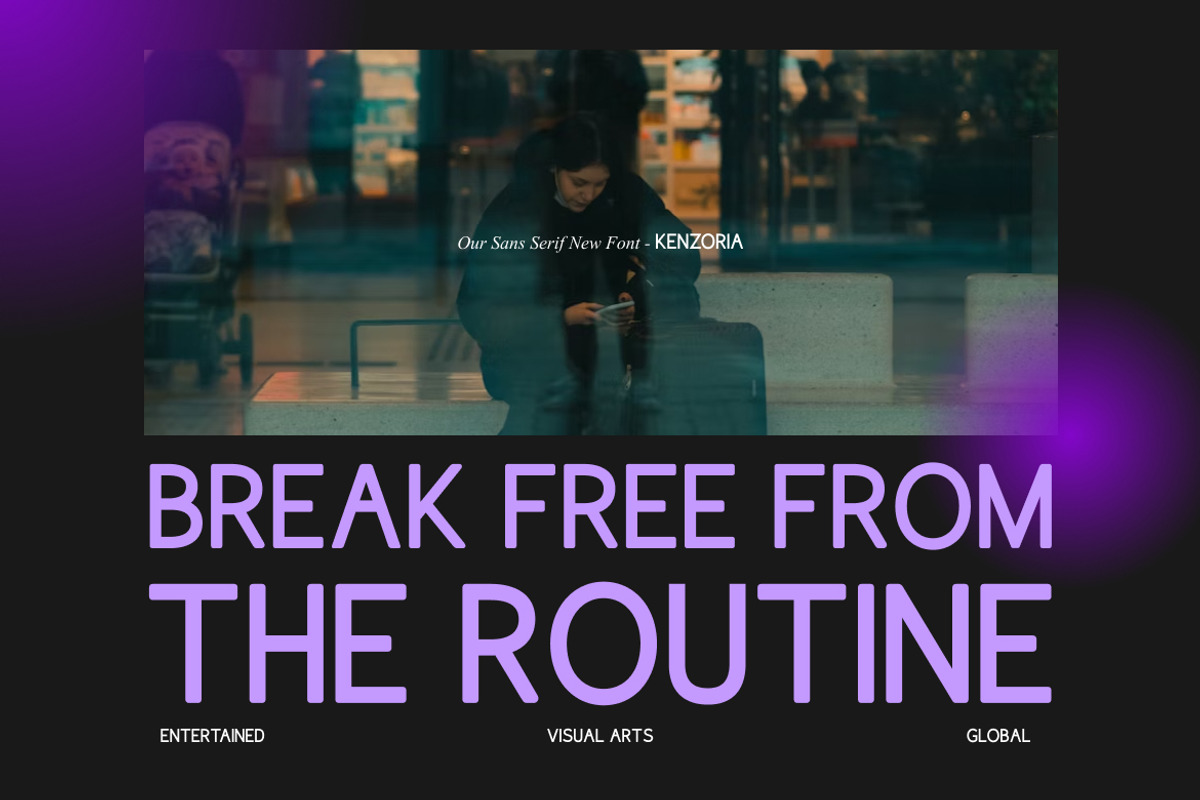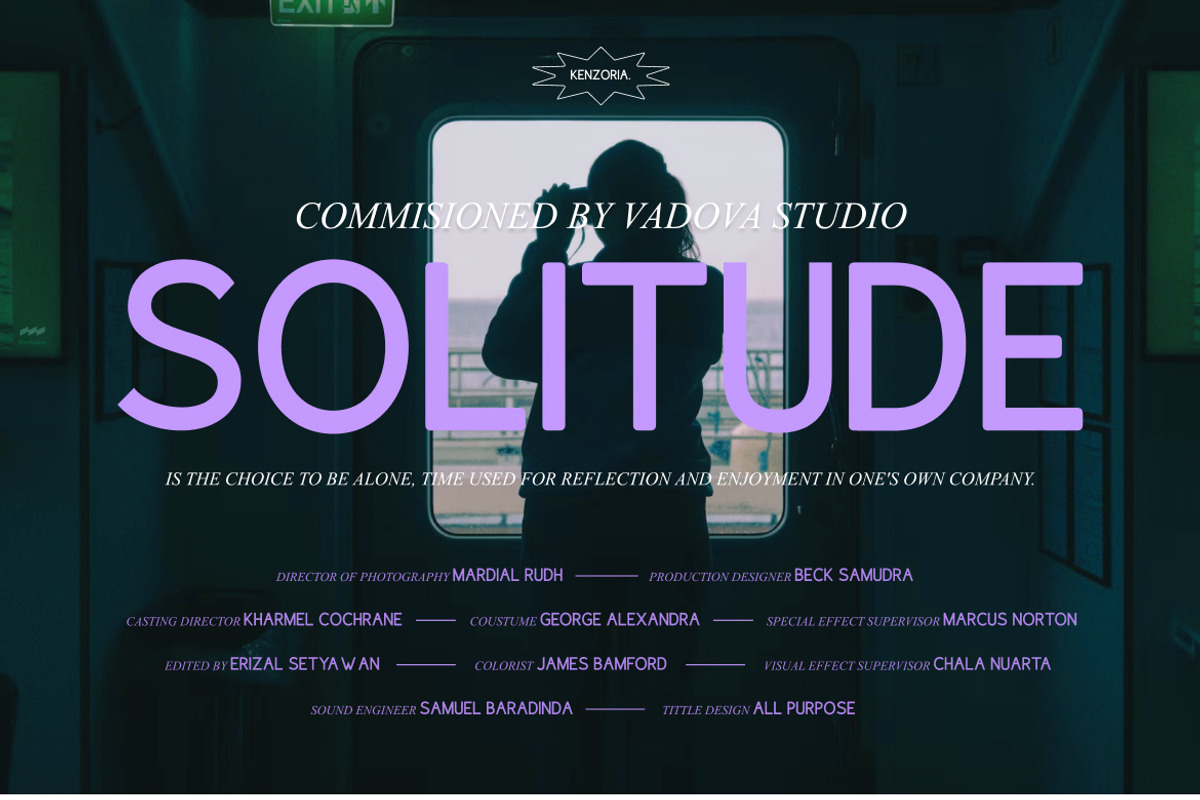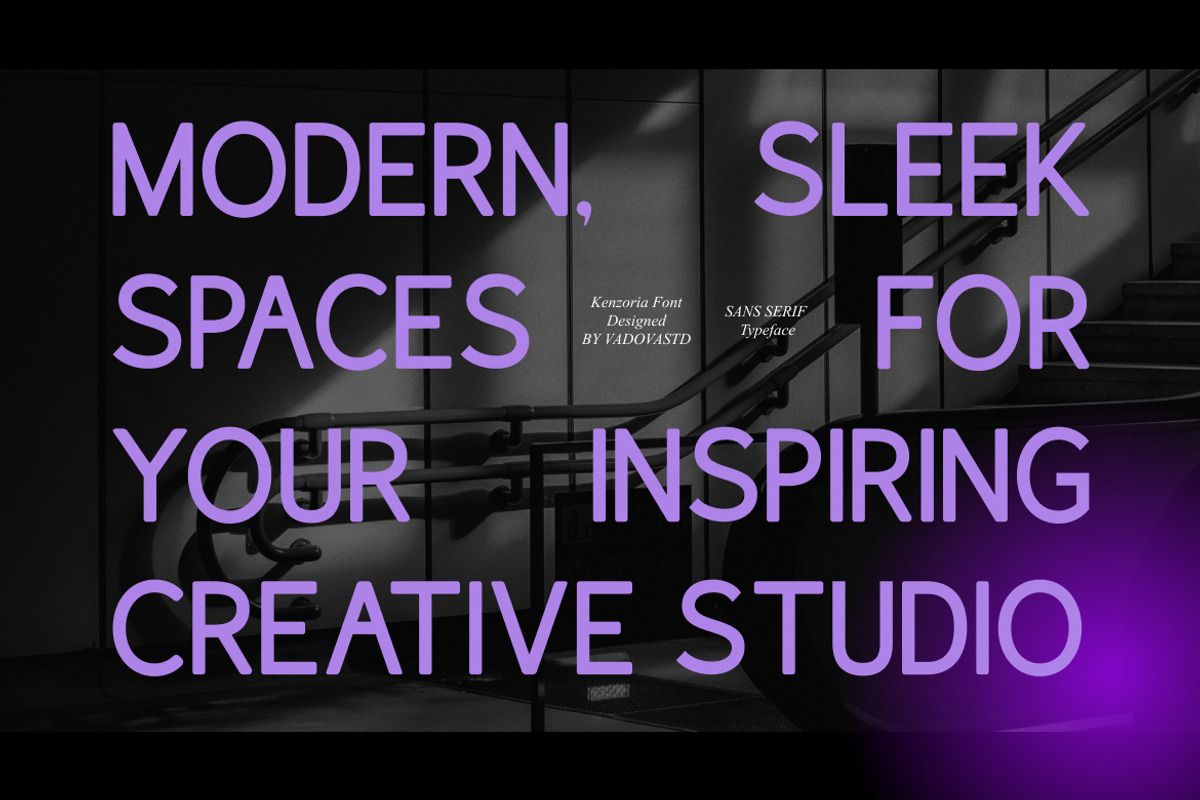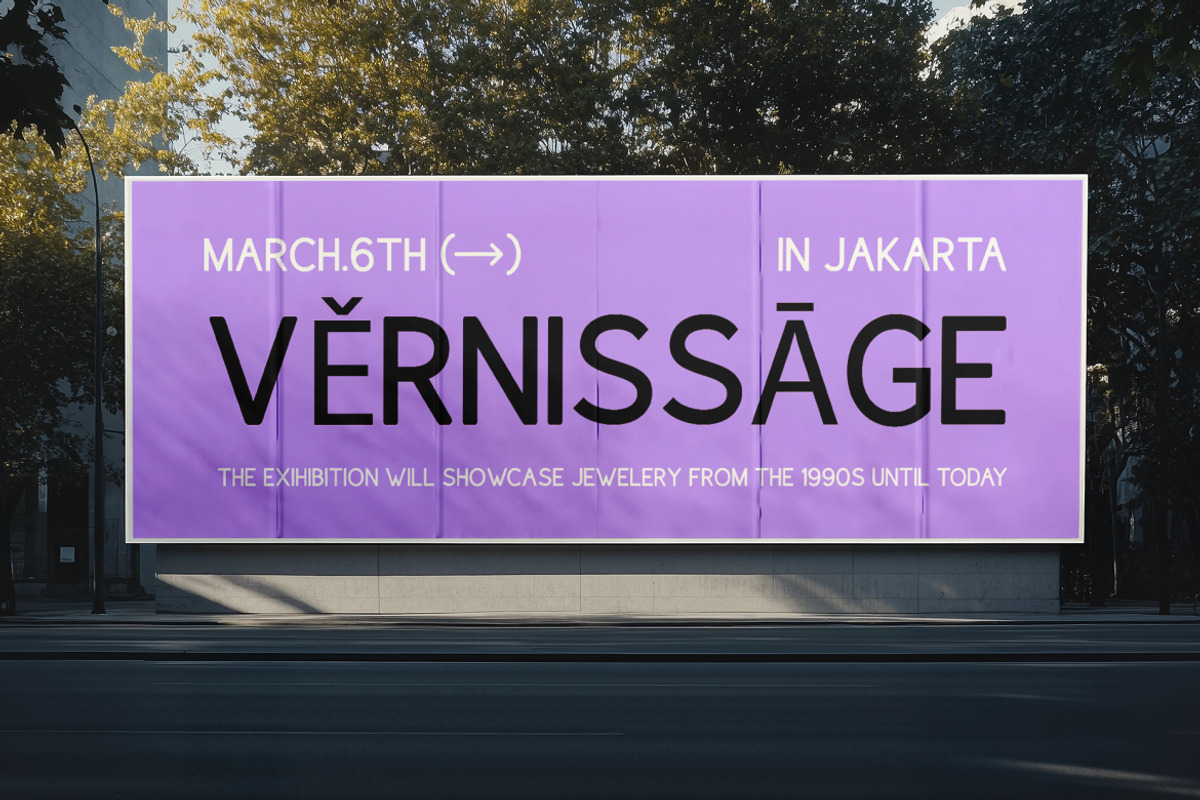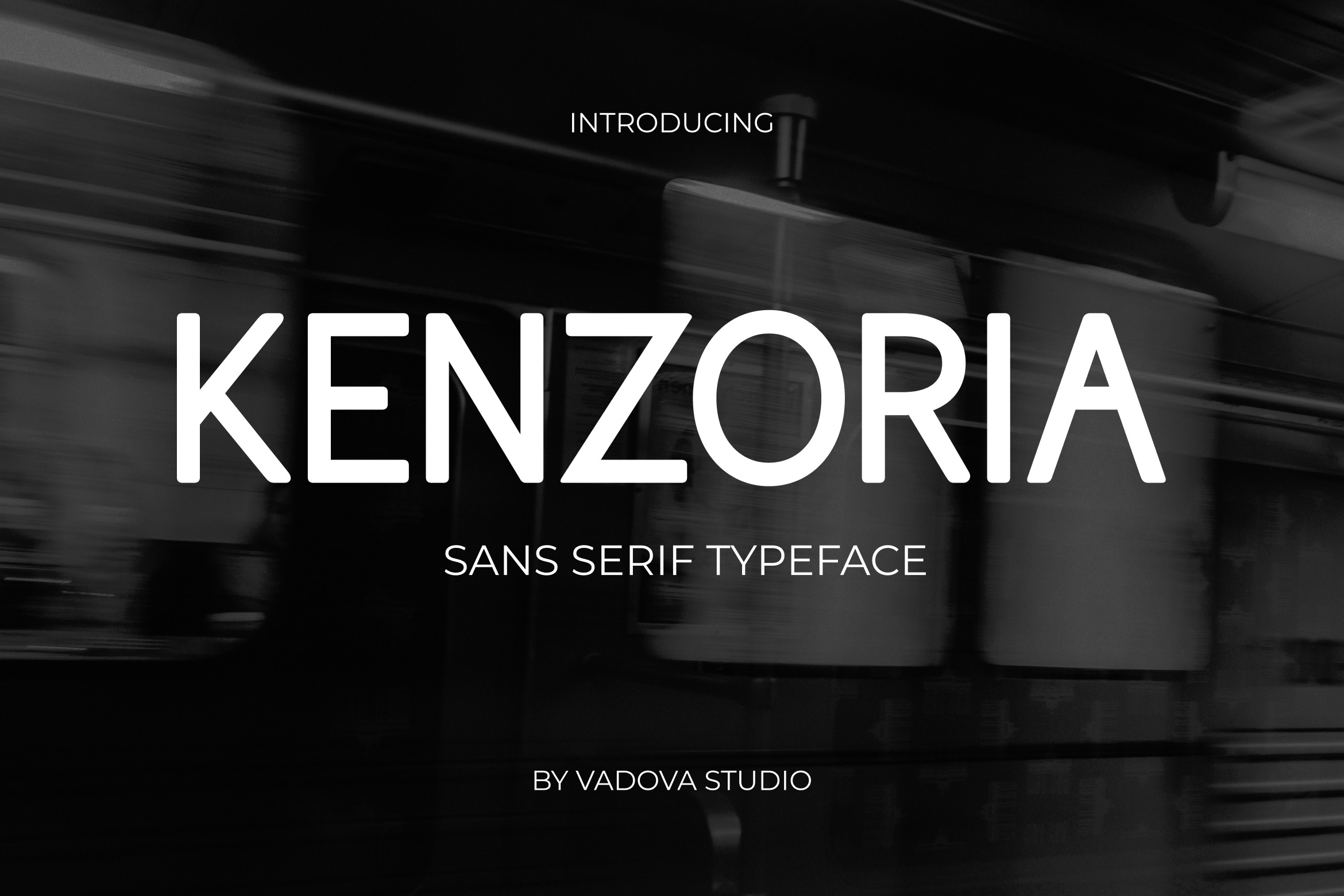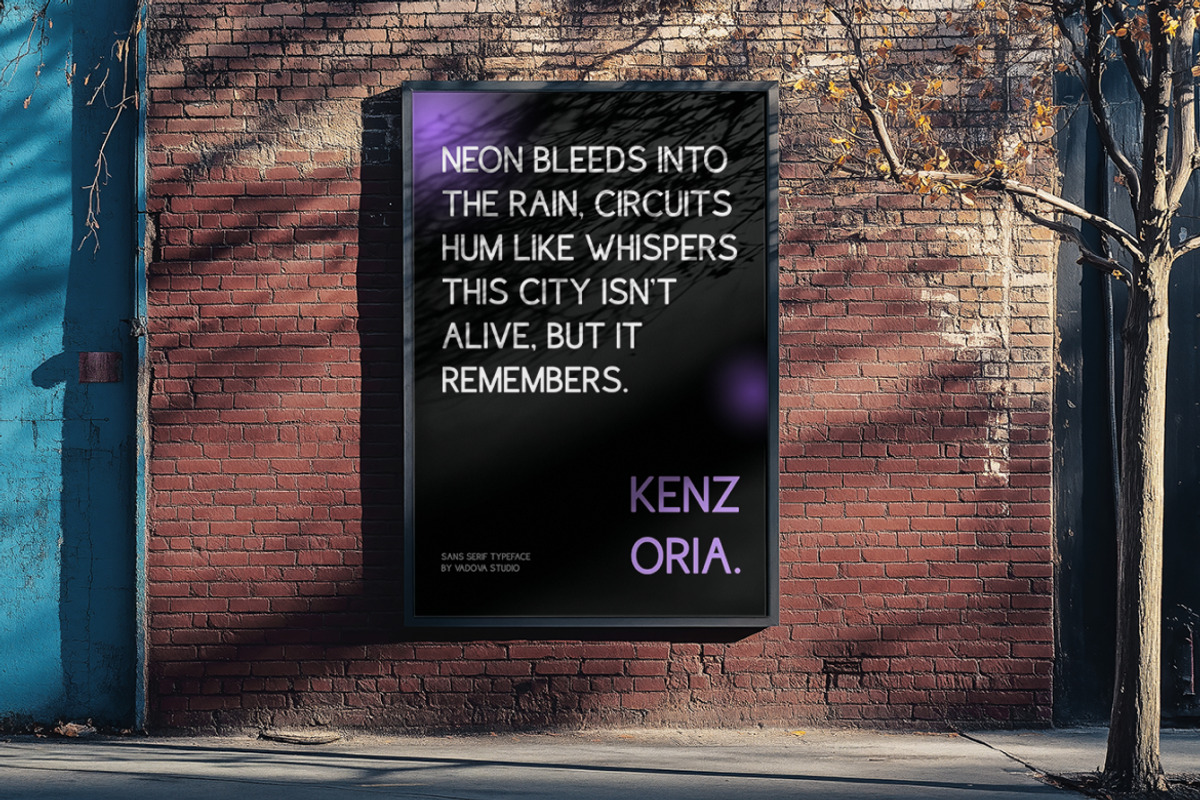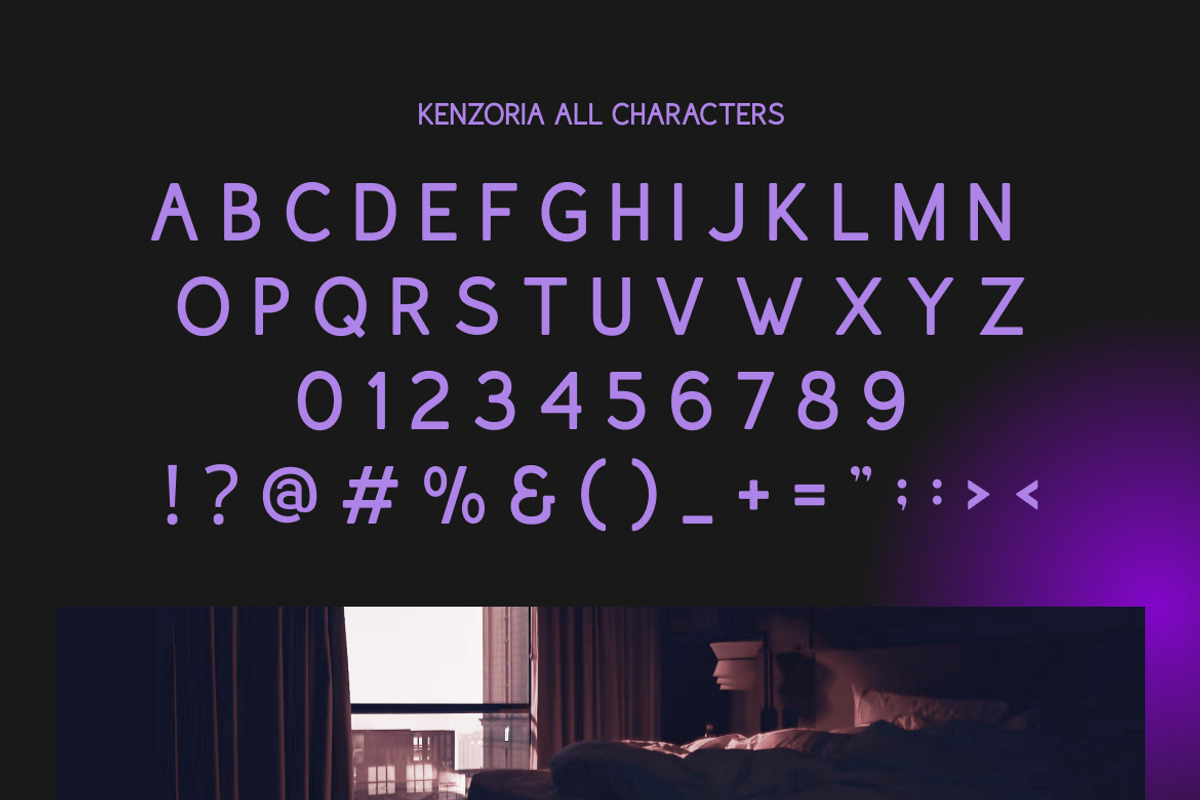
Kenzoria – Modern Sans Serif Font
Kenzoria is a modern sans serif typeface with clean lines and geometric precision, designed to deliver a sleek and contemporary aesthetic. With its subtle yet strong weight, this font stands out for its versatility and clarity, making it an ideal choice for a wide range of design projects. Kenzoria strikes the perfect balance between modern sophistication and readability, offering a professional yet friendly vibe.
Its neutral, clean design makes it perfect for both digital and print media, ideal for logos, branding, websites, and editorial work. Whether you’re designing for tech, fashion, or any modern business, Kenzoria ensures your brand message is communicated effectively and with style.
Why Designers Love It:
Versatile & Clean: Its modern and clean lines make it adaptable to multiple design styles and industries.
Strong yet Subtle: The medium weight of the font gives it a solid presence without overpowering the design.
Highly Readable: The open, geometric letterforms provide excellent legibility, making it great for body text and headlines alike.
Contemporary Aesthetic: Kenzoria brings a polished and fresh look to your design, perfect for modern brands.
Clean, modern design perfect for a variety of applications
Best Use Cases:
Corporate branding and identity
Digital advertising campaigns
Website headers and banners
Logo design and social media graphics
Editorial work such as magazine layouts and print design
Business cards and stationery
Product packaging
Corporate presentations
Kenzoria is the perfect solution for any design project that needs a professional, modern, and easy-to-read font. With its clean, geometric lines and subtle weight, Kenzoria makes a strong visual impact without sacrificing readability. Use Kenzoria in your next design to elevate your brand’s modern appeal.